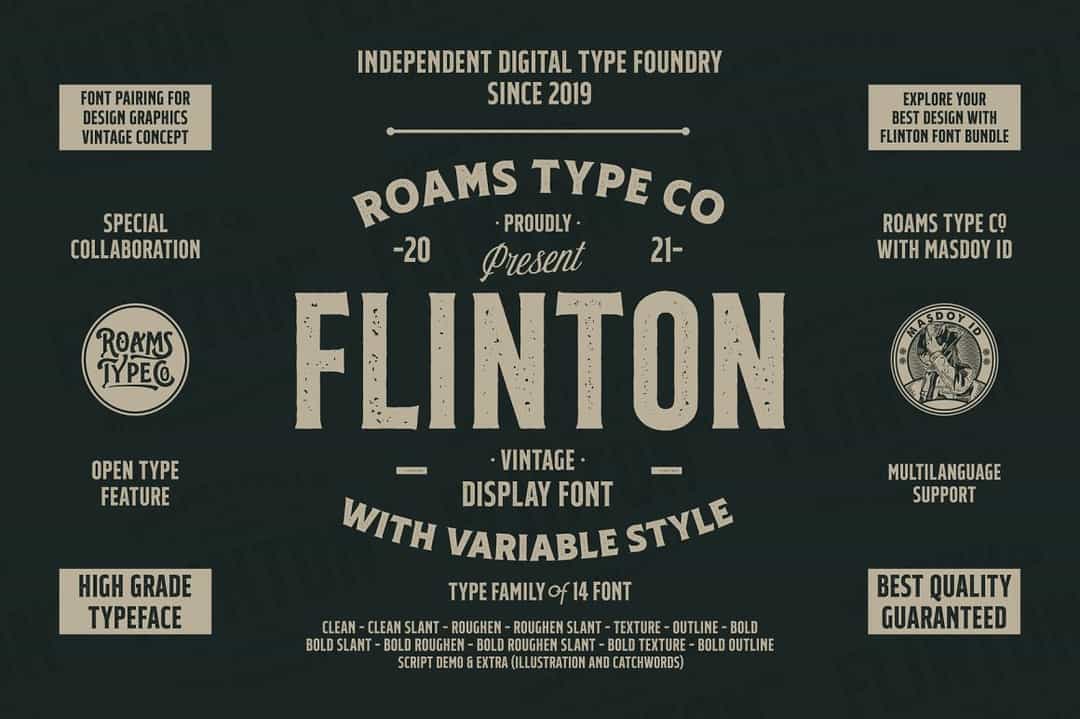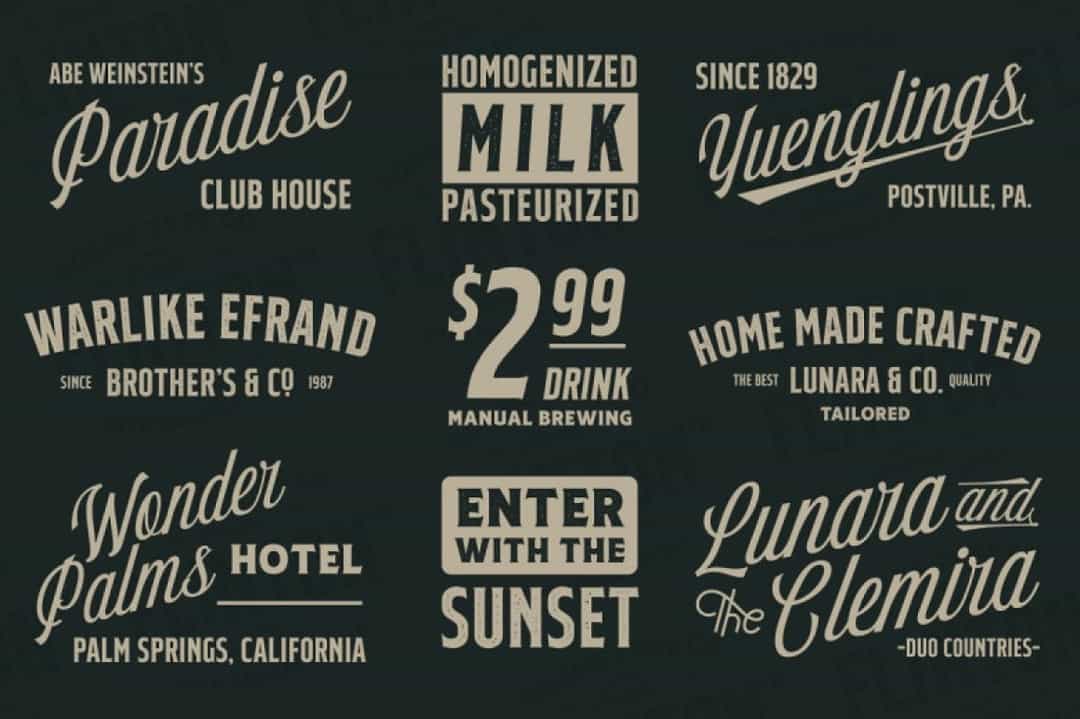
RTCO Flinton is an elementary Vintage Serif Display Font family comprised of three letter variants which together comprise 14 font styles including regular Serif, Bold Serif & Script Demo and Catchwords & Illustrations for additional features.